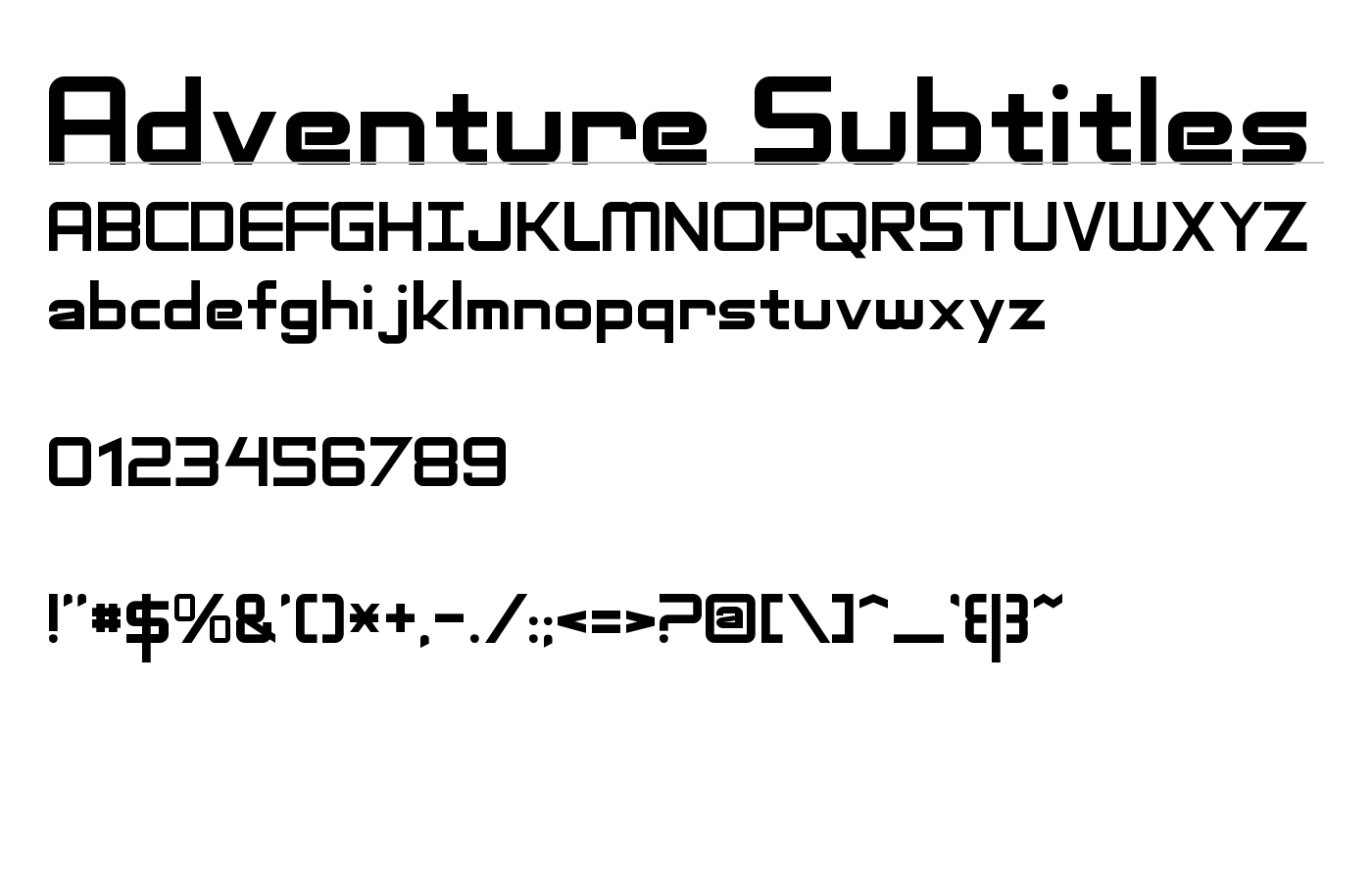
Adventure Subtitles is a modern, geometric sans serif font with a sturdy, technical feel. Its clean lines, uniform stroke weight, and squared shapes make it highly legible and perfect for digital displays, subtitles, and tech-related branding. This font conveys a sense of precision and clarity, ideal for futuristic or adventure-themed projects needing bold, readable text.
Adventure Subtitles Font
About Adventure Subtitles Font